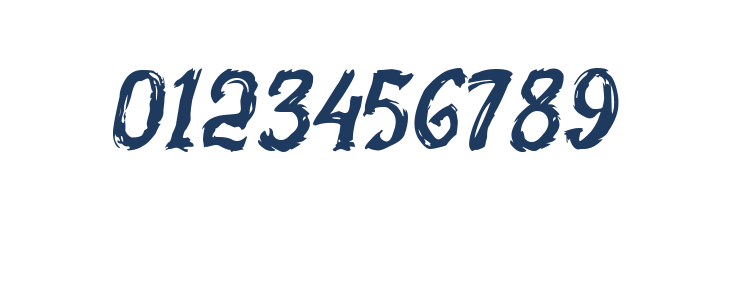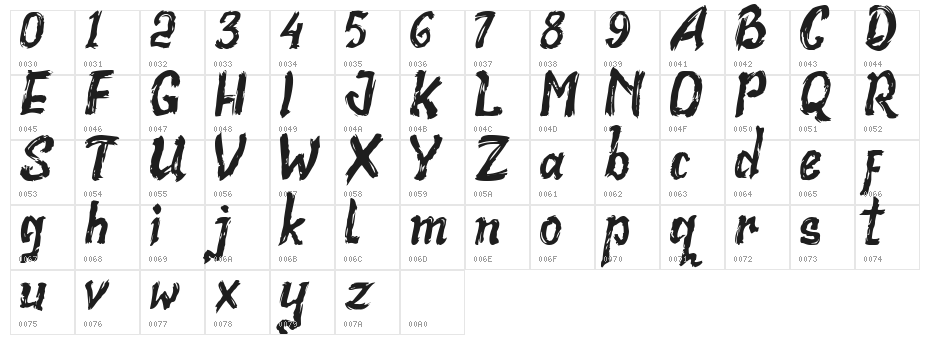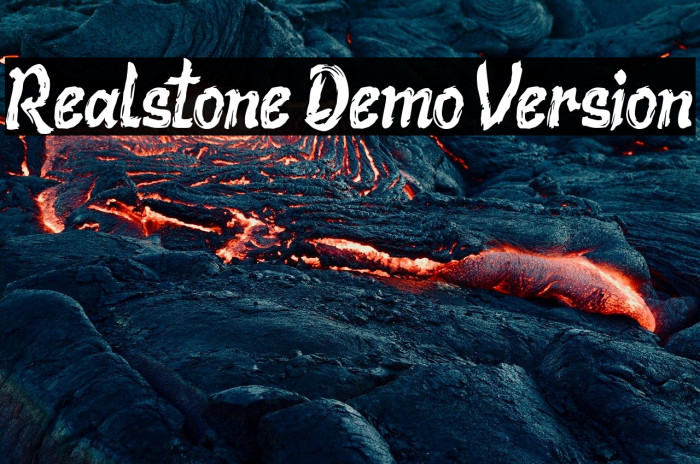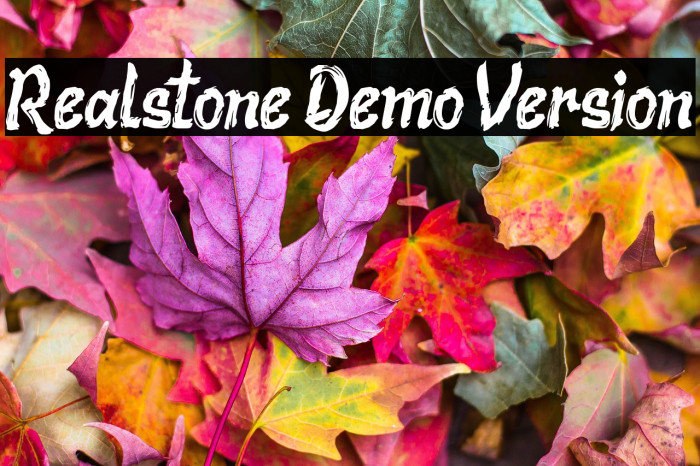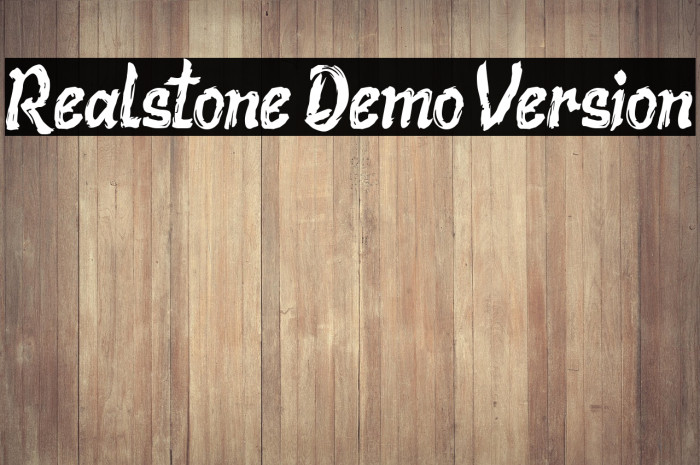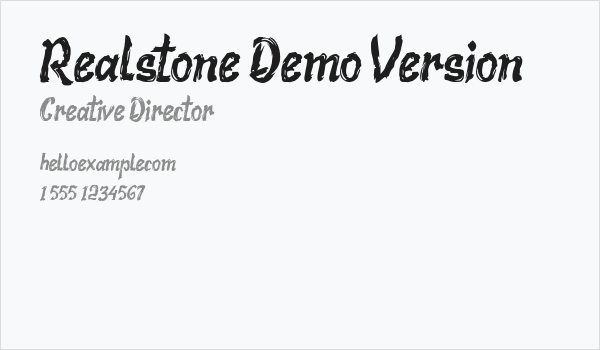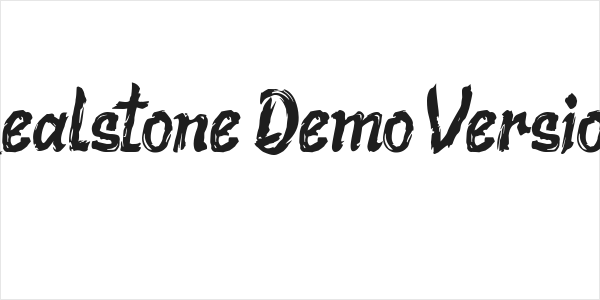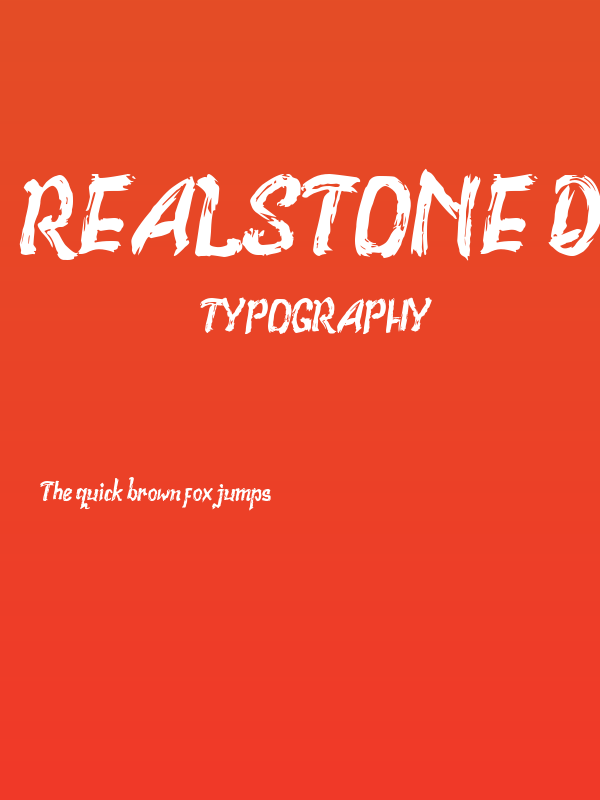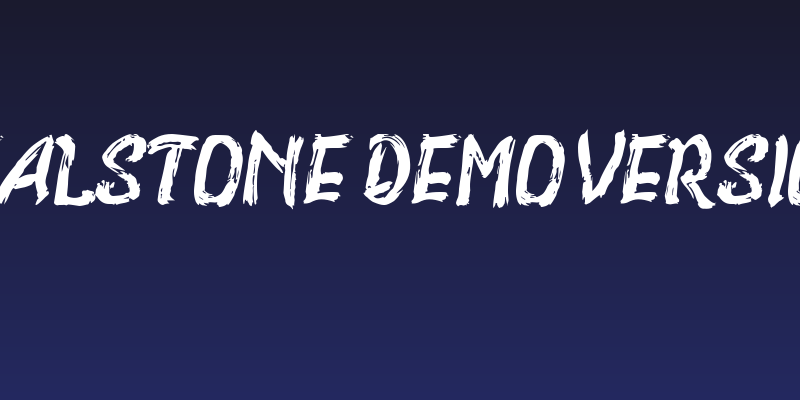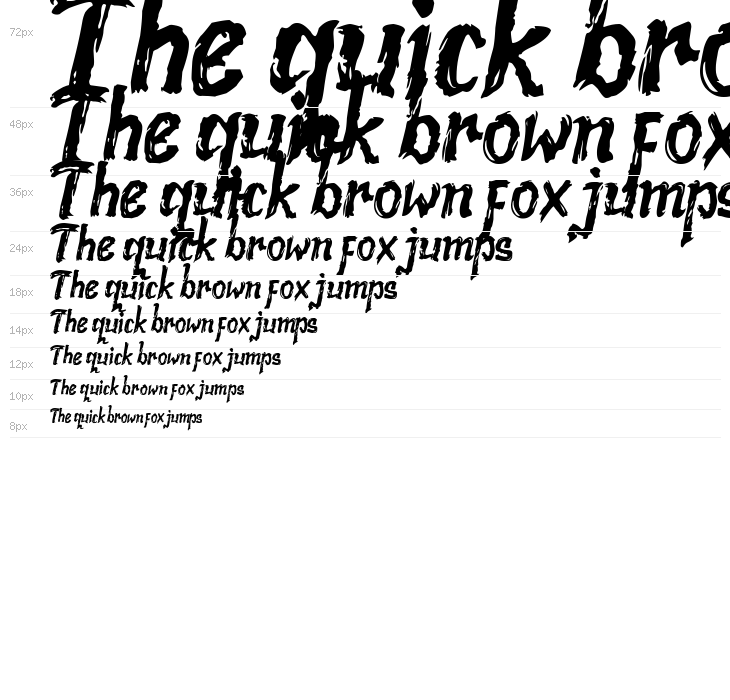
Realstone Demo Version Font
Realstone Demo Version Description
This font features a bold and dynamic brushstroke style, characterized by its rough, textured edges and energetic flow. The letters have a hand-painted appearance, giving them a raw and organic feel. The uppercase and lowercase characters maintain a consistent style, with exaggerated curves and sharp angles that add a sense of movement and intensity. The numerals and special characters are equally expressive, contributing to the font's overall dramatic and artistic aesthetic. This font is ideal for projects that require a strong visual impact and a creative, unconventional look.